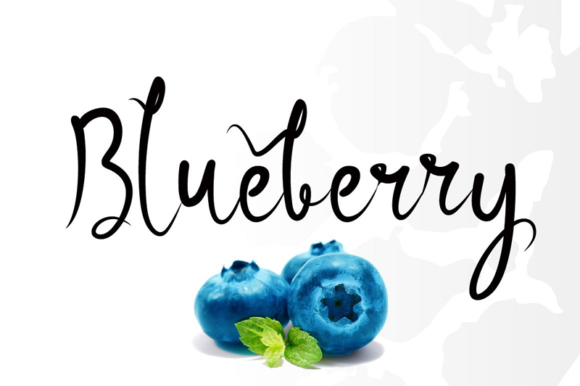
Unleash Your Creativity with the Delicate Charm of Blueberry Font
Do you remember the moment when you first fell in love with the handwritten notes your grandmother used to write to you? The way her scribbled words seemed to dance across the page, full of love and care? That’s the same feeling you’ll get when you use the Blueberry Font in your designs.
The Blueberry Font is a beautiful, elegant, and dainty handwritten font that’s perfect for adding a touch of sweetness to your projects. With its delicate swashes and original look, it’s ideal for letterheads, titles, and stationery. As a designer, you’ll appreciate the value of having a versatile font like Blueberry Font at your disposal, allowing you to create a wide range of crafty ideas with ease.
Blueberry Font Key Features
- Unique Characteristics: The font features a distinctive, modern script design with rounded edges and subtle flair, making it ideal for creative and editorial projects.
- Font Pairing: Blueberry Font pairs well with sans-serif fonts, such as Open Sans or Lato, creating a clean and modern typographic look.
Designer Review: Blueberry Font
Overall, I’d say the Blueberry Font is a decent addition to any designer’s toolkit, but it’s not without its quirks. Let’s dive into what works well and what doesn’t.
- Unique aesthetic: Blueberry Font brings a refreshing, modern touch to your designs with its cursive script style.
- Legibility: The font is relatively easy to read, even at smaller sizes.
- Good for titles and headings: The font’s bold, playful feel makes it perfect for titles and headings.
- Not ideal for body text: While legible, the font can be a bit too ornate for body text, which can lead to fatigue.
- Lack of variations: The font family is relatively small, with limited options for bold, italic, and condensed styles.
While Blueberry Font won’t be the go-to choice for every project, it’s a great option for those looking to add a touch of whimsy and personality to their designs. Just be mindful of its limitations and use it strategically to maximize its impact.
Getting the Most Out of Blueberry Font
Experiment with different font sizes, colors, and styles to create a unique look. Use Blueberry Font in combination with other fonts to create a visually appealing design. Consider using it for headings, titles, or emphasis.
Blueberry Font is ideal for creative projects, such as posters, flyers, and social media graphics. It’s also suitable for web design, branding, and editorial content. Use it to add a touch of elegance and sophistication to your designs.
Alternatives to Blueberry Font
Pacifico is a beautiful, elegant script font ideal for use in headings, titles, and quotes. It’s perfect for creating a warm and inviting atmosphere in your designs.
Comparison to Blueberry Font: Pacifico has a more elegant and sophisticated feel, whereas Blueberry Font is more playful and casual. Use Pacifico when you want to convey a sense of luxury and sophistication.
Great Vibes is a modern, cursive font that’s great for use in headings, titles, and body text. It’s perfect for creating a fun and energetic atmosphere in your designs.
Comparison to Blueberry Font: Great Vibes has a more dynamic and playful feel, whereas Blueberry Font is more whimsical and quirky. Use Great Vibes when you want to convey a sense of fun and energy.